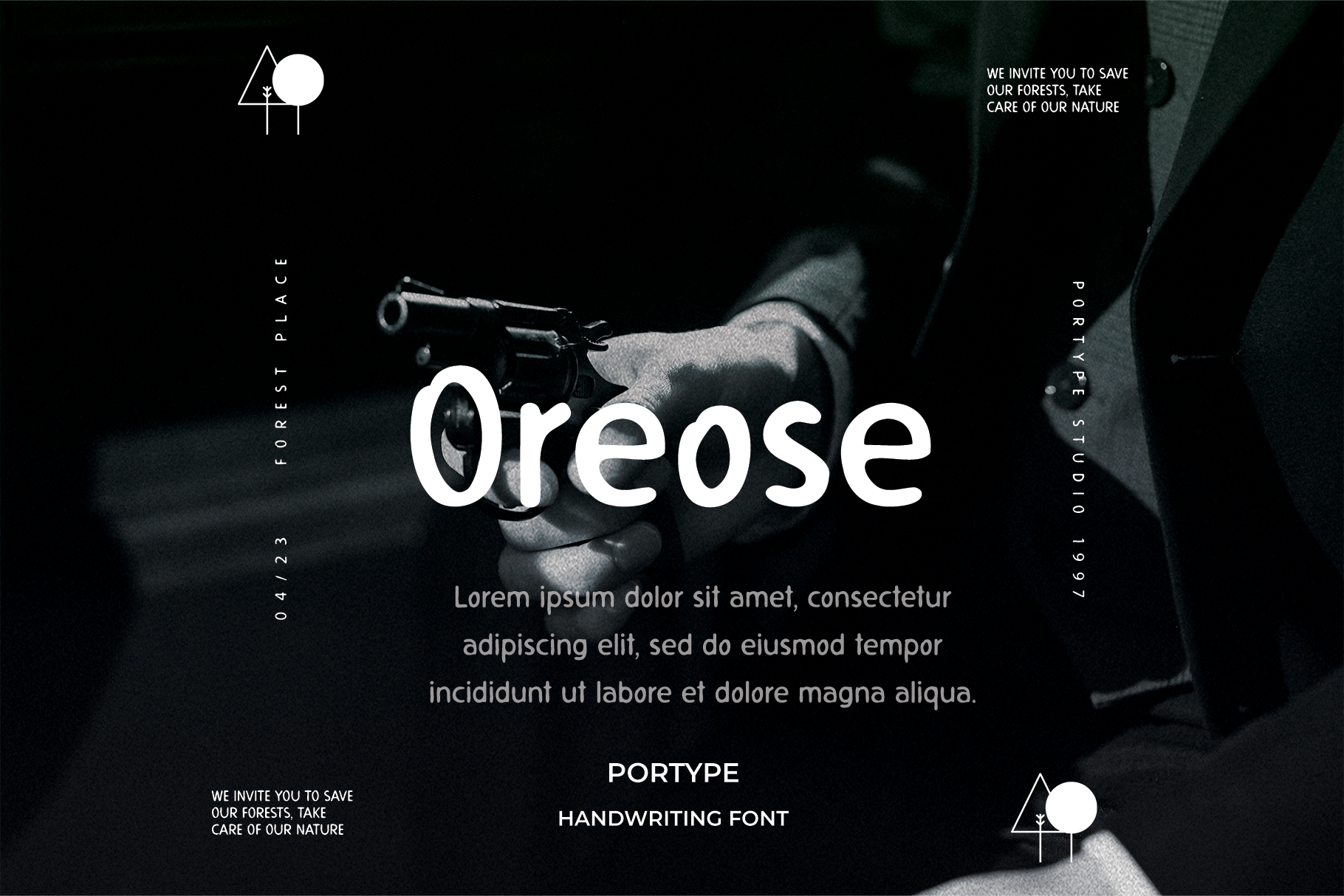
Oreose Font
Oreose font,a handwritten typeface imbued with the mystique of the night, casts an enchanting spell on every stroke. Evoking the hushed elegance of midnight, this font exudes an aura of intrigue and sophistication. Its letters, crafted with the fluidity of moonlit brushstrokes, carry an air of mystery and grace, as if etched by the stars themselves. The subtle curves and shadowed accents of Oreose evoke the quiet beauty of a nocturnal landscape, offering a captivating fusion of handwritten artistry and the enigmatic allure of the night. Each character unfolds like a whispered secret, drawing readers into a world where darkness and elegance converge in perfect harmony.